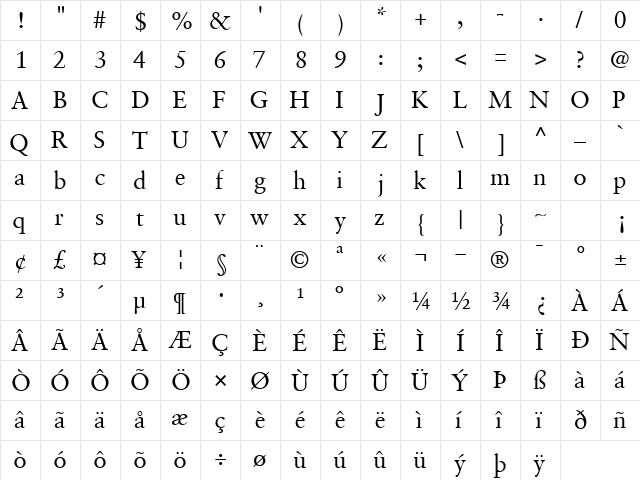
GaramondRetrospectiveSSK Regular Font Preview
GaramondRetrospectiveSSK Regular
GaramondRetrospectiveSSK Regular Font Details
Design Context for GaramondRetrospectiveSSK Typeface
GaramondRetrospectiveSSK has the warm character of retro typography — evoking diners, record sleeves, and the golden age of print advertising.
Font Pairing: Combine GaramondRetrospectiveSSK with a simple slab or neutral sans — period-accurate companions reinforce the vintage feel without competing for attention.
Pro Tip: Use GaramondRetrospectiveSSK for headlines and pull quotes rather than body copy — its personality is best appreciated in short, focused bursts.